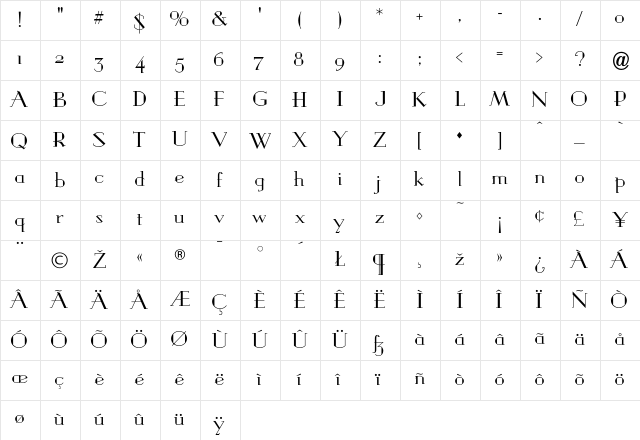
GraybarBook Regular
Design Context for GraybarBook Typeface
GraybarBook offers clean, dependable letterforms without strong stylistic allegiance, making it a practical choice for designers who need flexibility.